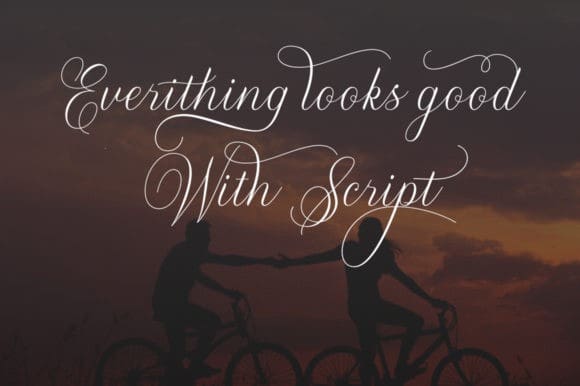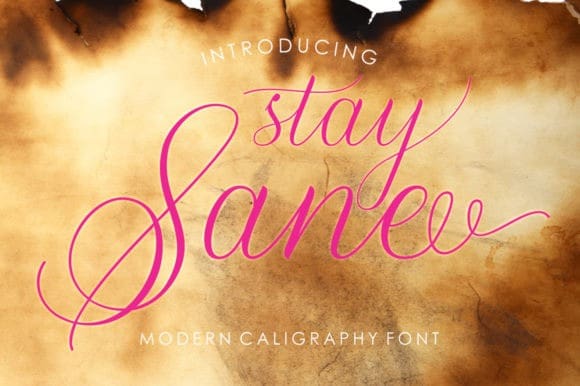
Stay Sane Font
Stay Sane Font is a charming handwritten font. This versatile script font has a wide spectrum of applications from greeting cards to headlines and is guaranteed to add a romantic feel to your next project.